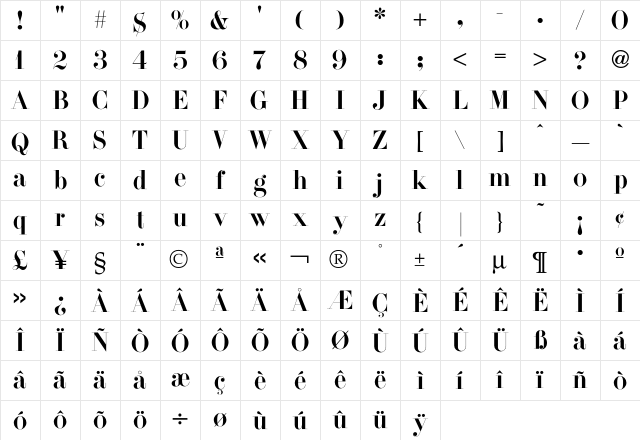
Complete Didi Font glyph index. Displaying only characters natively supported by Didi Font font.
Didi is a composed and adaptable typeface that performs quietly and consistently across a wide range of design contexts.